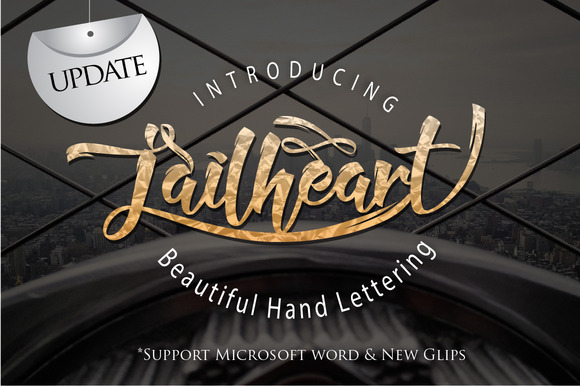
Journey into the realm of Jailheart Font, a script font family that captures the essence of handwritten elegance. Embark on a creative odyssey with this captivating typeface, meticulously crafted by Olexstudio, to transform your designs into works of art.
Unleash your imagination and embrace the boundless possibilities that await you with Jailheart Font. The font's enchanting curves and graceful strokes evoke a sense of playfulness and charm, adding a touch of whimsy to your creations. Dive into a world where words dance and emotions bloom, leaving an enduring impression on your audience.
Imagine your designs adorned with the unique charm of Jailheart Font. Craft captivating headings that command attention, design logos that exude personality, and create invitations that ignite anticipation. Unleash your creativity and craft t-shirt designs that make a statement, greeting cards that warm hearts, and posters that captivate imaginations.
Explore the versatility of Jailheart Font as you delve into the world of labels, book covers, and brochures. Each character, meticulously designed and lovingly rendered, dances across the page, inviting your readers to embark on a journey of discovery. Transform your designs into enchanting experiences that linger in the minds of your audience.
With Jailheart Font as your creative companion, you'll discover a world of endless possibilities. Its ability to effortlessly blend with various design styles makes it the perfect choice for a diverse range of projects. From elegant wedding invitations to vibrant marketing campaigns, Jailheart Font seamlessly adapts to your vision, adding a touch of magic to every creation.